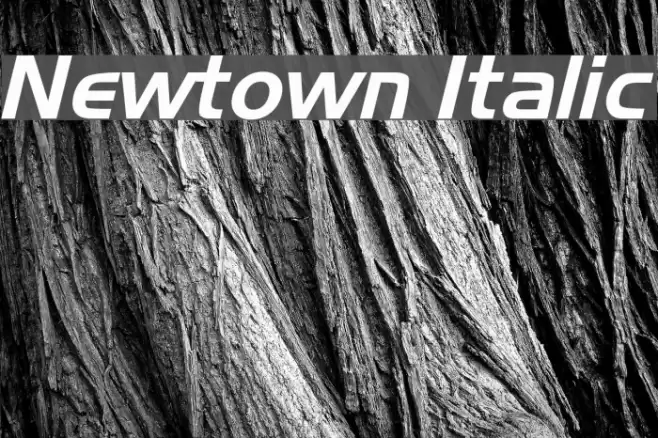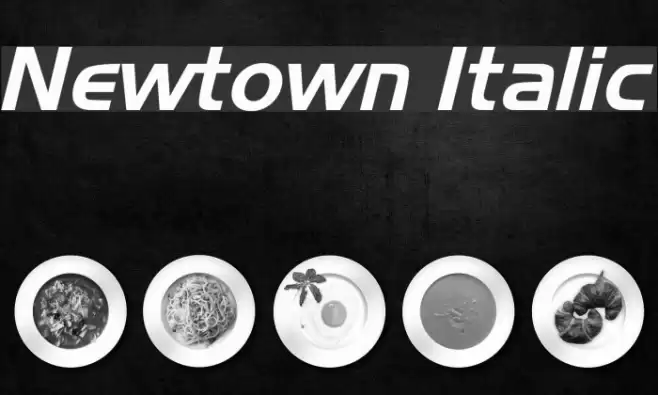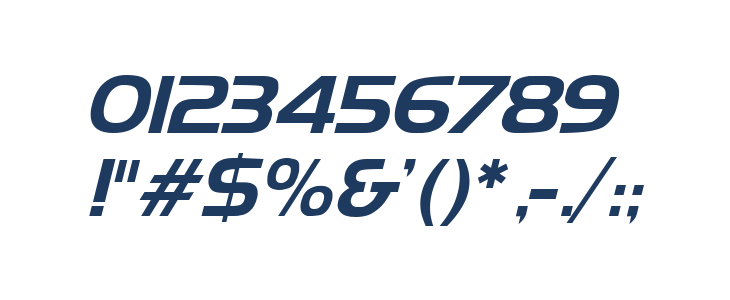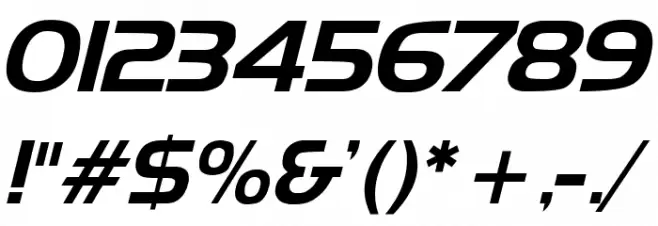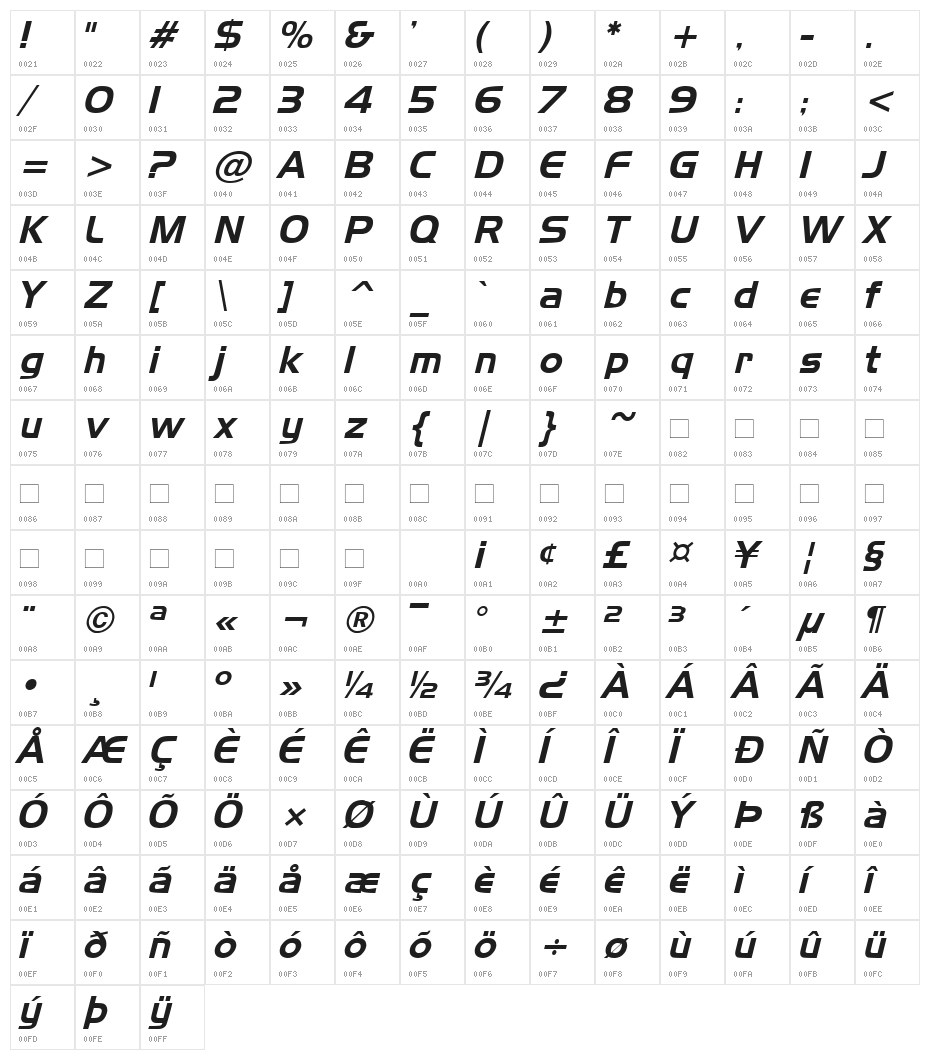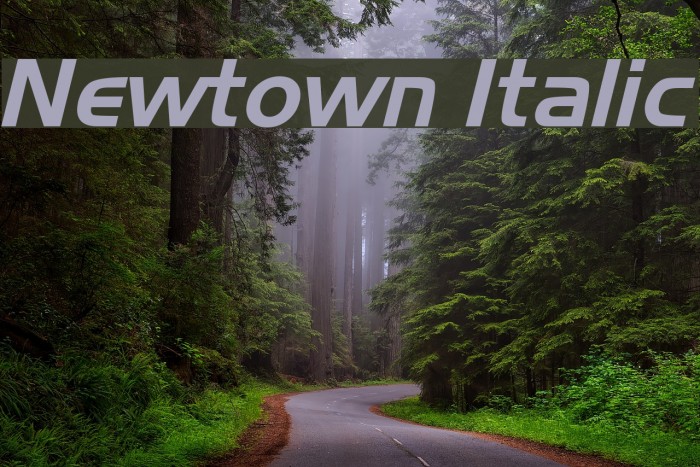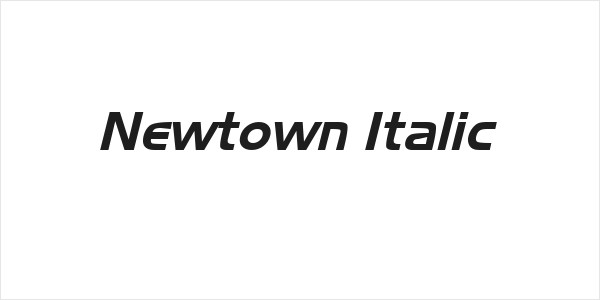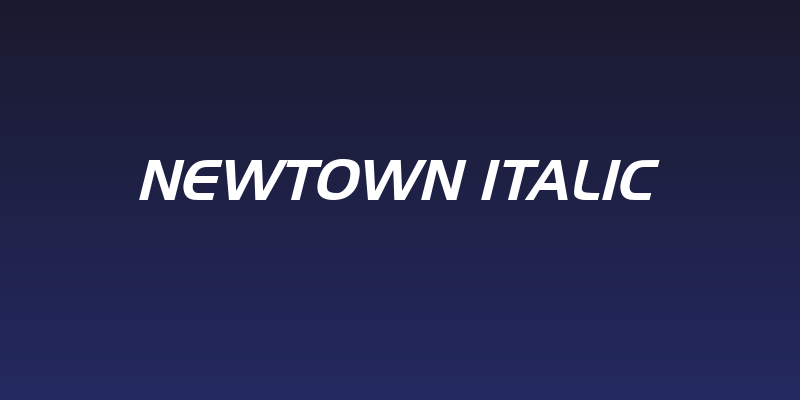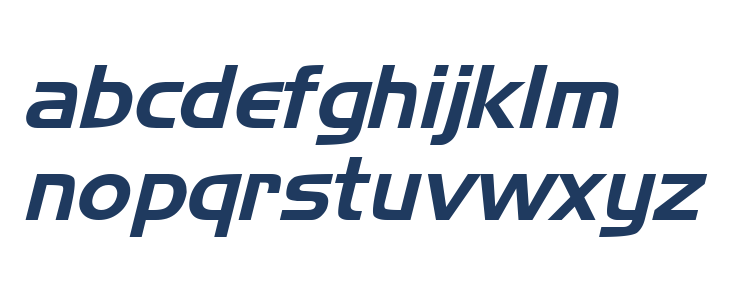
Newtown Italic Font
Newtown Italic Description
This font features a sleek, italicized design with a modern and dynamic appearance. The characters are slightly slanted, giving a sense of motion and fluidity. The strokes are consistent in thickness, providing a uniform look across all characters. The uppercase letters are bold and commanding, while the lowercase letters maintain a smooth and cohesive flow. The numerals are clear and distinct, ensuring readability. Special characters are well-integrated, complementing the overall style. This font is ideal for projects that require a contemporary and energetic feel.
A modern, italicized font with a sleek and dynamic style from Uncategorized fonts.
- Proposed Projects: Ideal for branding, advertising, sports-related designs, and modern web interfaces.
- Use Case: Headlines, Logos, Advertising